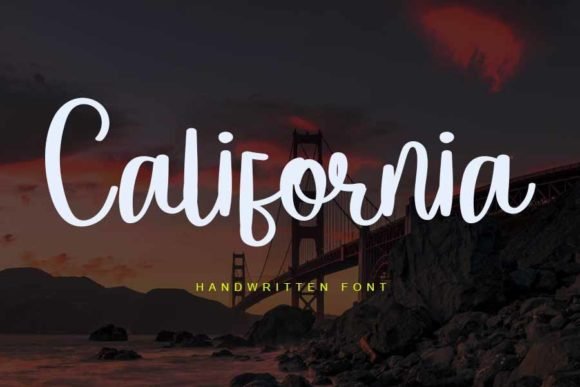
Handwritten Charm in the Golden State
Do you remember the moment you fell in love with a font? For many designers, it’s a moment that sparks creativity and sets the tone for an entire project. For me, it’s the instant I saw the California Font – a beautiful, handwritten font that embodies the timeless elegance of classic calligraphy with a friendly, approachable feel.
Developed to evoke the classic style of authentic handwriting, the California Font is perfect for designers looking to add a touch of sophistication to their projects. This versatile font is ideal for creating original and outstanding designs that stand out from the crowd.
Whether you’re working on a branding project, creating a wedding invitation, or crafting a beautiful piece of stationery, the California Font is a valuable addition to your design toolkit. Its unique combination of classic style and friendly feel makes it a go-to choice for designers who want to create truly memorable designs.
California Font Key Features
- Unique Characteristics: California Font features a distinctive, modern script style with a relaxed, casual feel, making it ideal for use in creative and informal settings.
California Font Review
Overall, I have mixed feelings about the California Font. It’s a beautiful, elegant script font that can add a touch of sophistication to your designs.
- ✨ The flowing lines and curves of the font make it perfect for creative and artistic projects.
- ✨ The font is highly legible, even at smaller font sizes, making it suitable for body text and headings.
- ✨ The font has a high-end feel to it, making it perfect for luxury brands and high-end designs.
However, there are some limitations:
- ⚠️ The font may not be the best choice for technical or scientific projects, as it can be difficult to read in certain font sizes.
Overall, I would recommend the California Font for creative projects where a touch of elegance is needed. However, it’s essential to use it judiciously and pair it with other fonts that complement its flowing lines and curves.
California Font is a great choice for creating a relaxed, casual feel in your designs. Use it for headings and titles to add a touch of sophistication. It pairs well with bold, sans-serif fonts for a modern look. Avoid using it for large blocks of text, as it can be difficult to read.